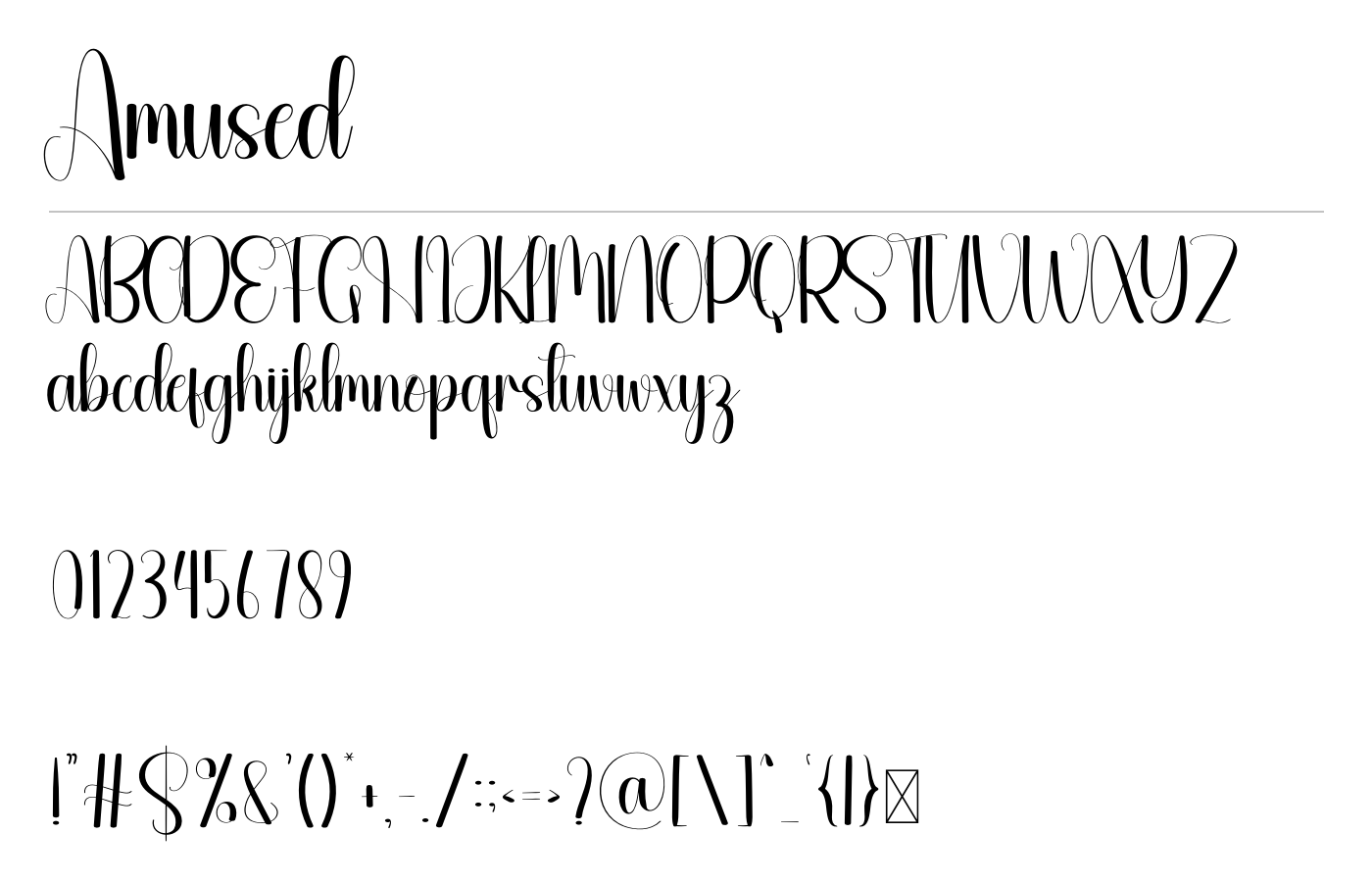
Amused is a whimsical script font with tall, slender letters featuring elegant, flowing strokes and playful curls, giving it a light and airy feel. Its delicate contrast and artistic flourishes make it ideal for creative branding, invitations, and feminine design projects that want to convey charm and sophistication. This font works beautifully in decorative headlines or logos where a unique, handcrafted style is desired.
Amused Font
About Amused Font